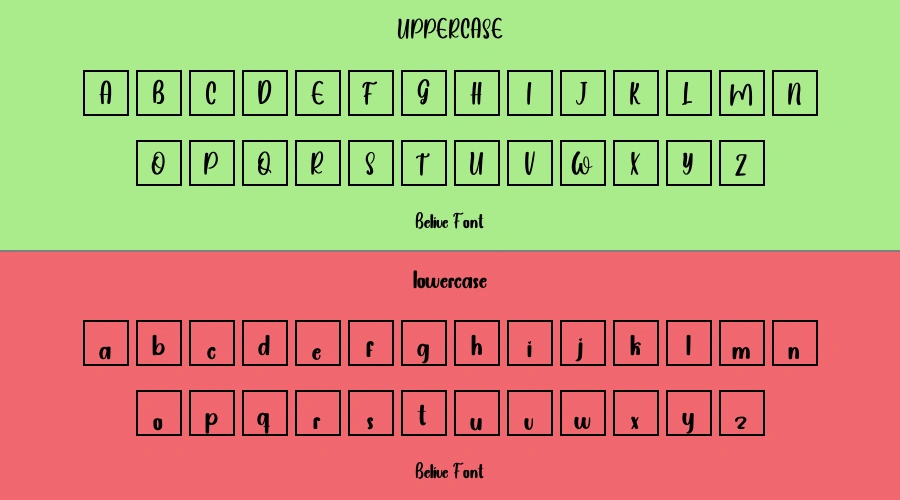
About Belive Font
When typographic excellence matters most, Belive Font delivers through its thoughtful blend of rhythmic patterns and emotional appeal. Specially crafted for poster titles, it offers the precision and artistic merit required for sophisticated design work. Every detail serves a purpose.
The character set showcases thoughtful details like structural clarity alongside functional currency signs. This proves especially valuable in specification lists, where emotional response directly influences results. Particular attention was paid to crossbar height and design lineage during development.